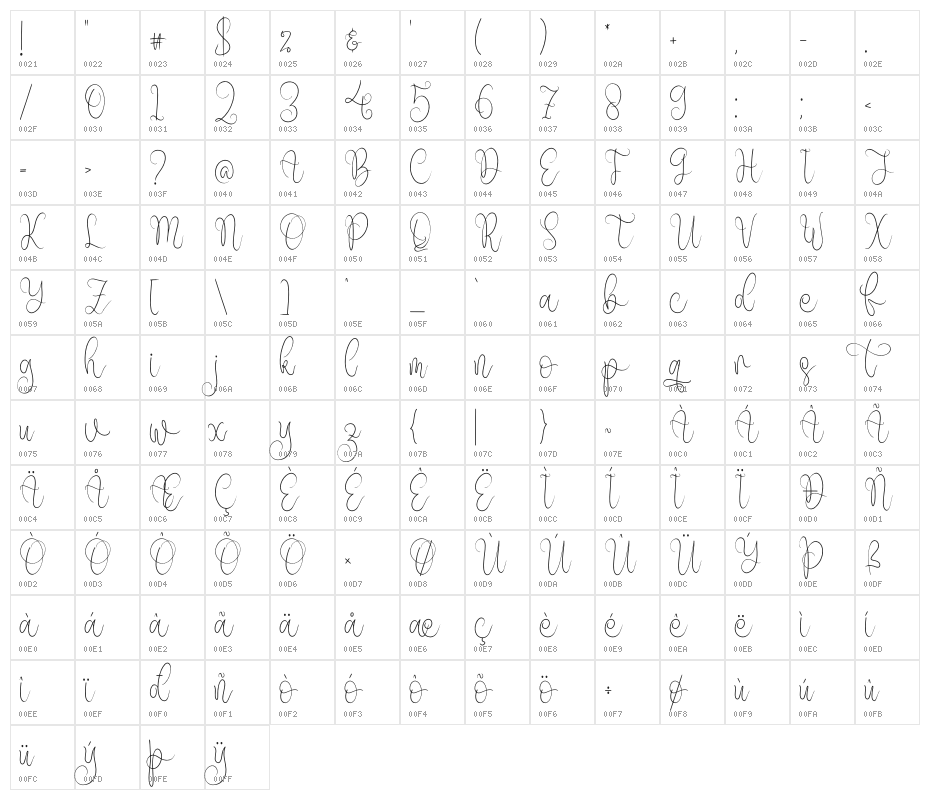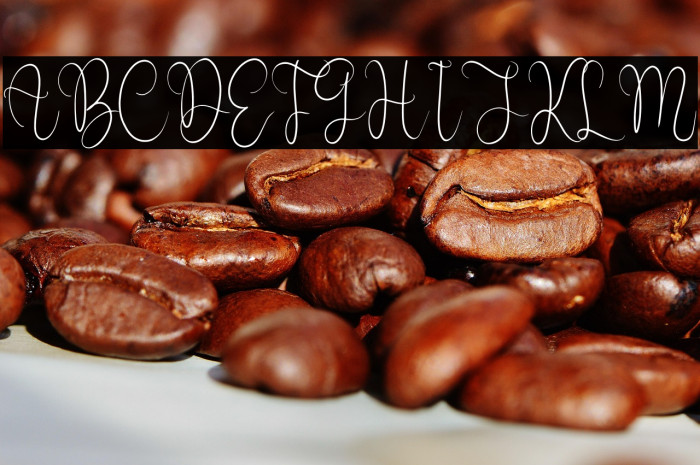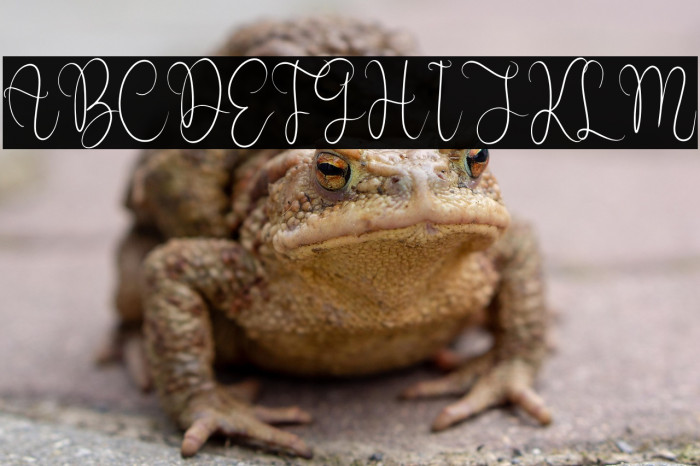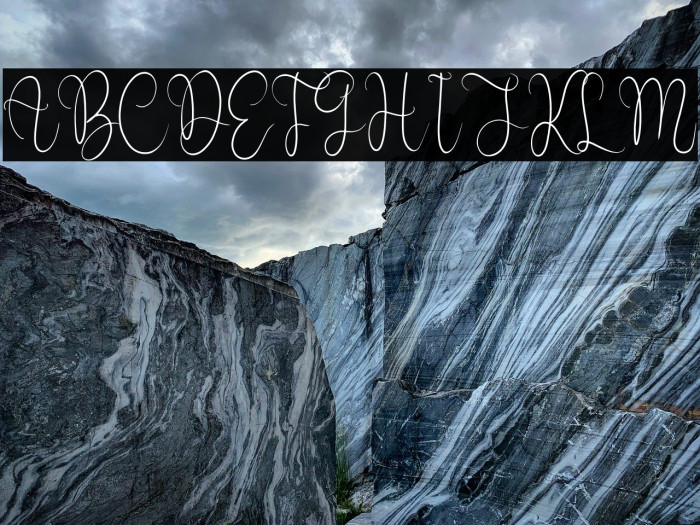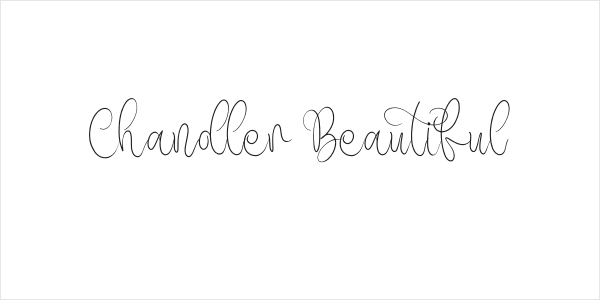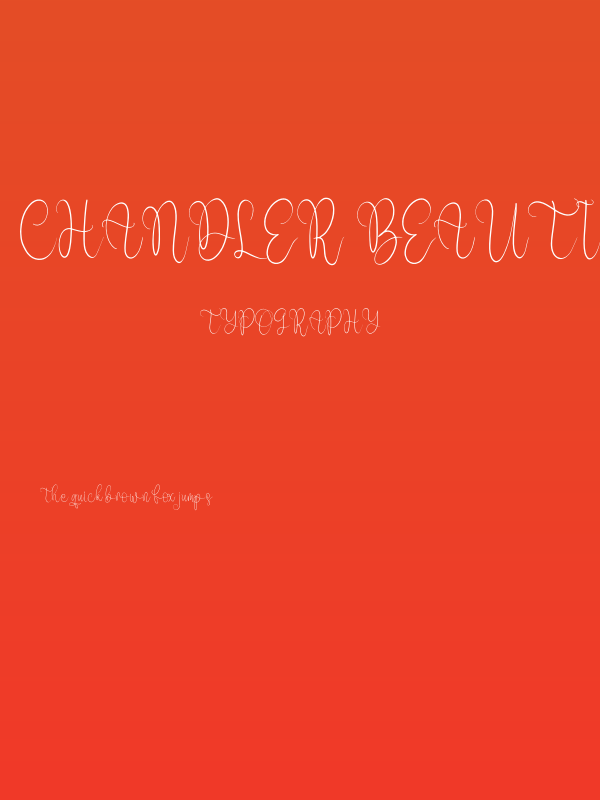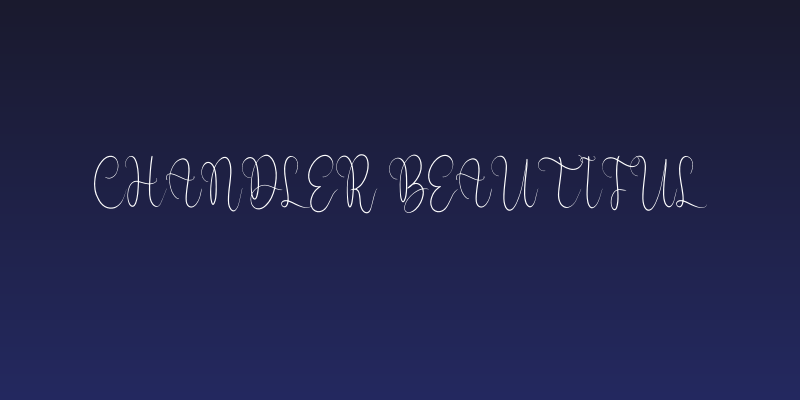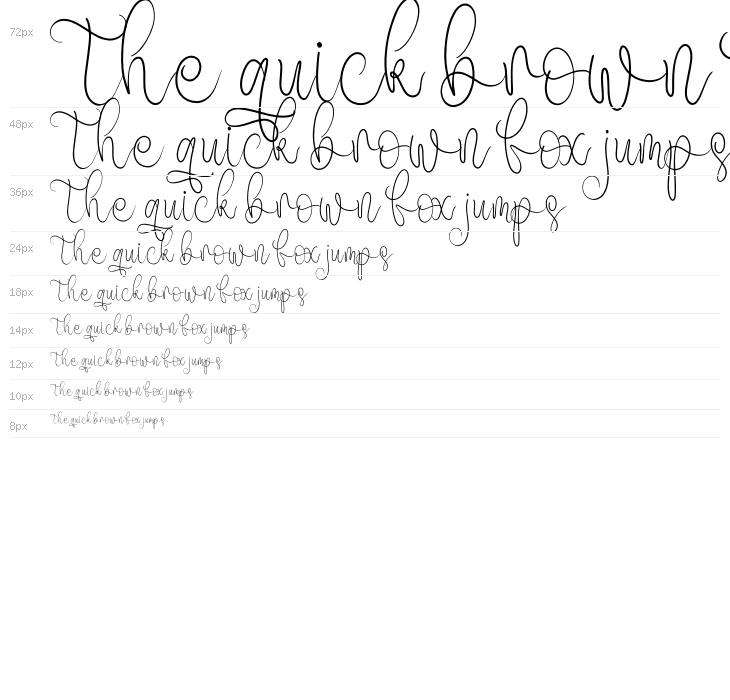
Chandler Beautiful Font
Chandler Beautiful Description
Elegant and flowing script font with intricate swirls and loops, conveying a sense of sophistication and grace.
| Proposed Projects | Wedding invitations, greeting cards, elegant branding. |